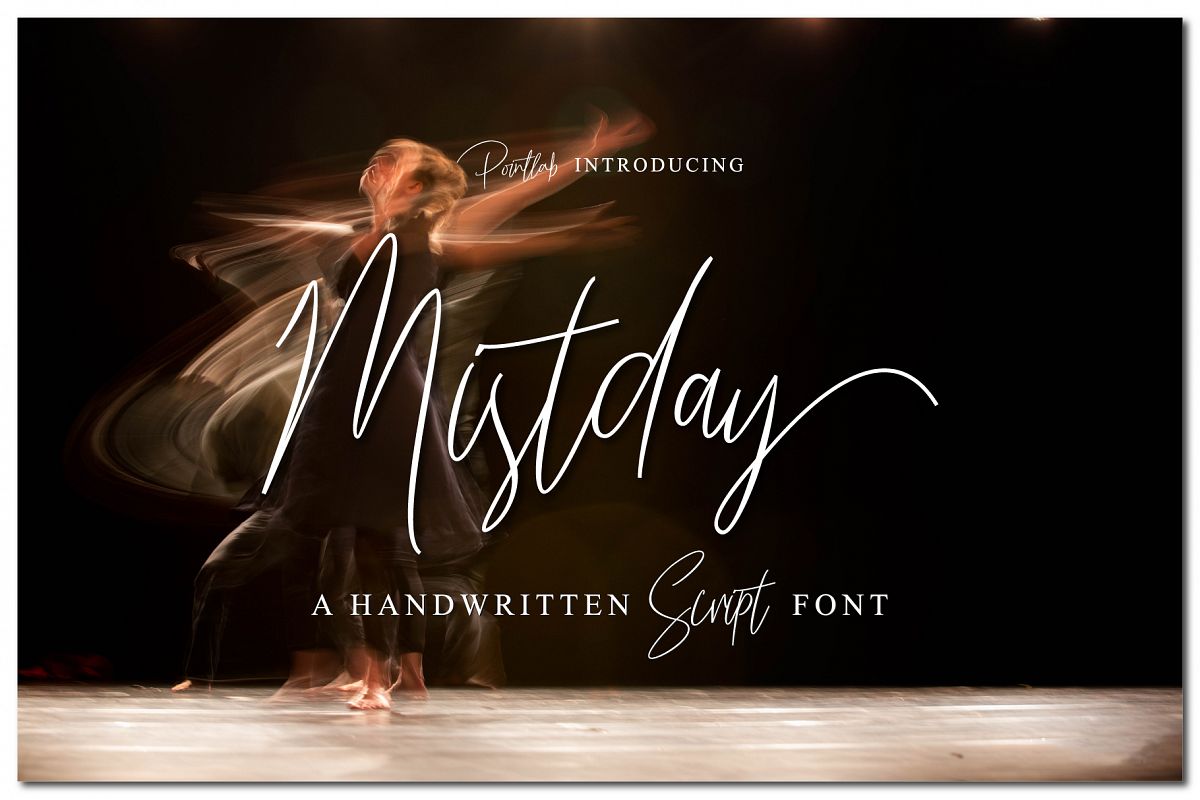
Mistday Script
"Mistday Script" is a modern handwritten font with elegant signature-style. This font has a very beautiful movement, dynamic dah certainly very elegant."Mistday Script" contains opentype features such as stylistic alternates, swashes & ligatures. Perfect for logo, printed quotes, badges, insignia, packaging, headline, poster, t-shirt / apparel, greeting card, and wedding invitation, & etcWhat you get?